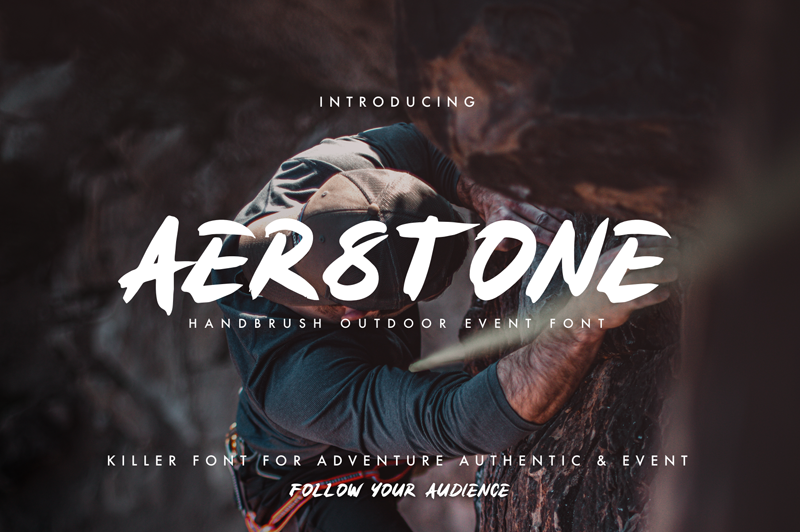
Preview and download Aerstone Font. Created by Neature Visual in Script Brush styles with Free for personal use license.
Aerstone is a handbrush font with a great personality for outdoor or events. It will elevate a wide range of design projects to the highest level, be it branding, headings, wedding designs, invitations, signatures, logos, labels, and much more! NOTE: This demo font is for PERSONAL USE ONLY! We hope you enjoy this font. If you need an extended license or corporate license please contact me at neature.works@gmail.com :) Paypal account for donation : https://www.paypal.me/BGRPC I really appreciate your donations. Thank you, |